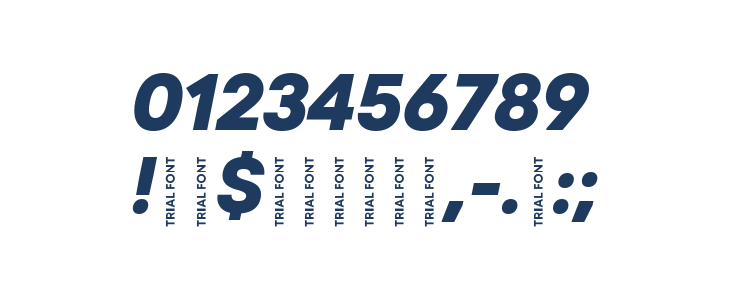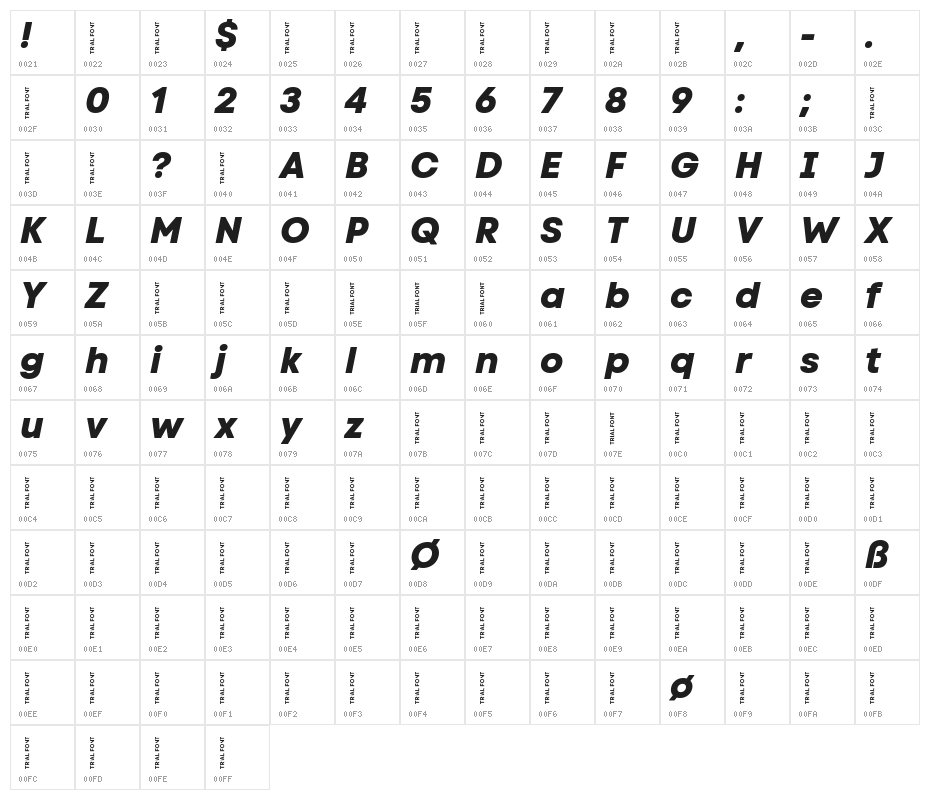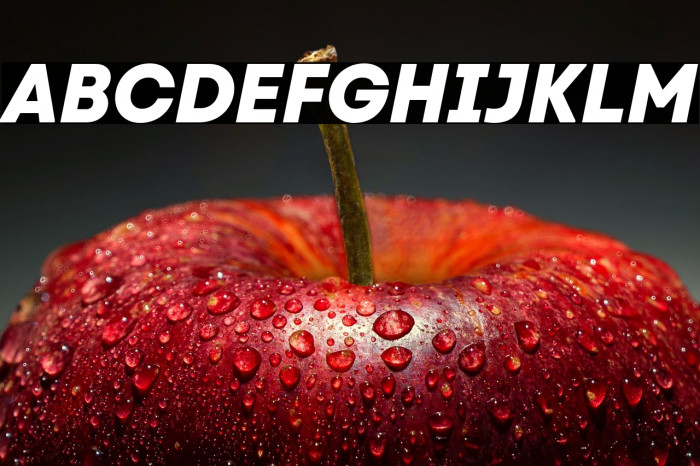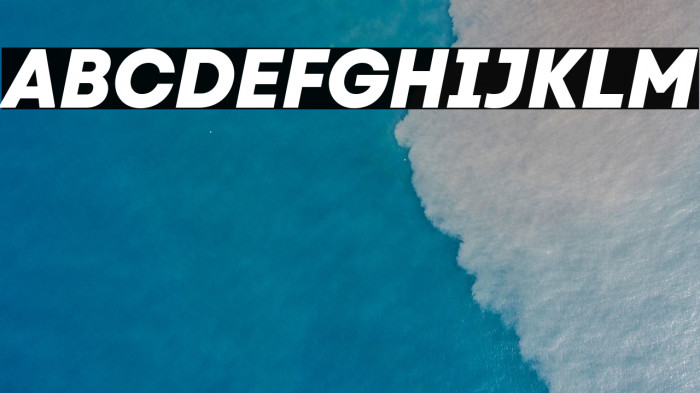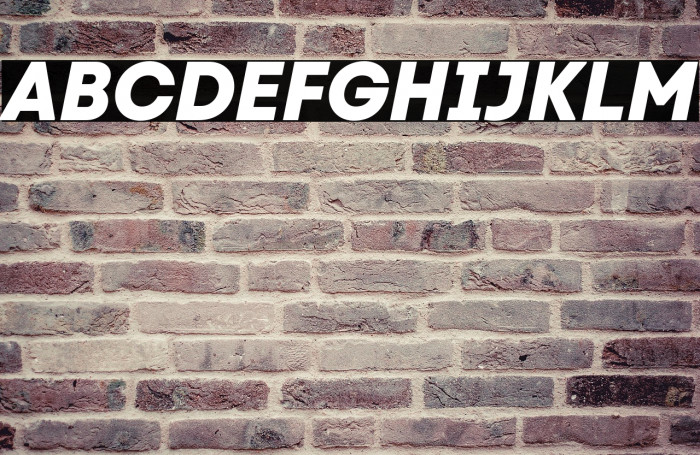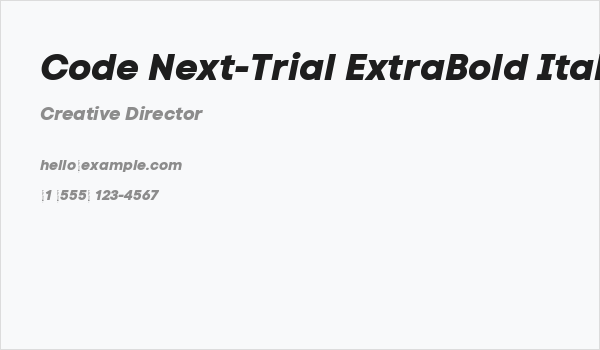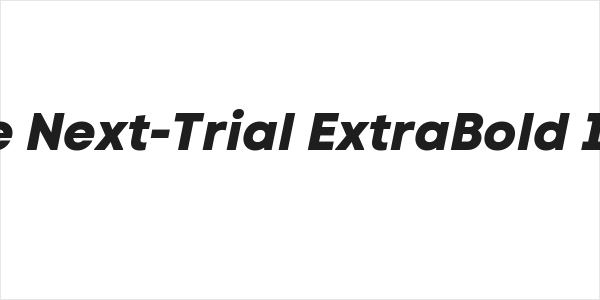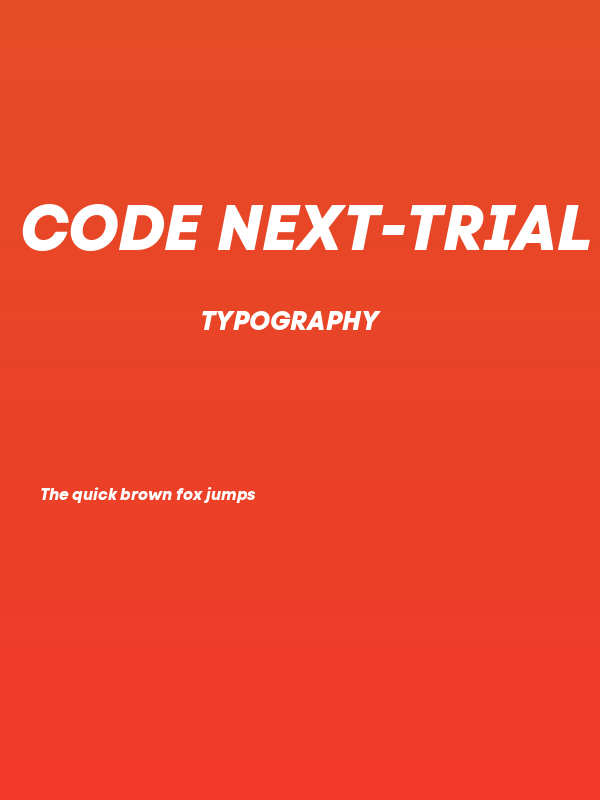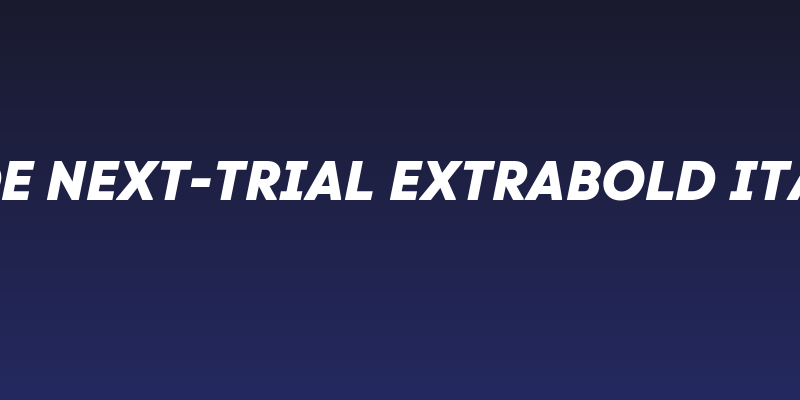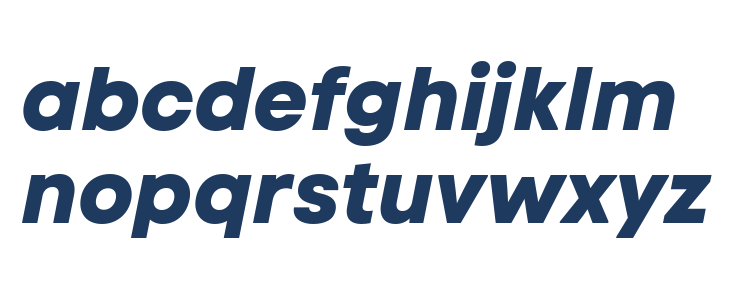
Code Next-Trial ExtraBold Italic Font
Code Next-Trial ExtraBold Italic Description
This typeface features a bold and dynamic style with a strong italic slant, giving it a sense of motion and energy. The characters are robust and thick, providing a commanding presence. The uppercase and lowercase letters maintain a consistent weight, ensuring readability and impact. The numerals are equally bold, complementing the overall design. Special characters are designed with the same boldness, making them stand out effectively. The font's modern aesthetic is suitable for contemporary design projects, offering a clean and professional look.
| Use Case | Headlines, Logos, Advertising |
| Proposed Projects | Ideal for branding, advertising, headlines, and digital media where a strong visual impact is needed. |